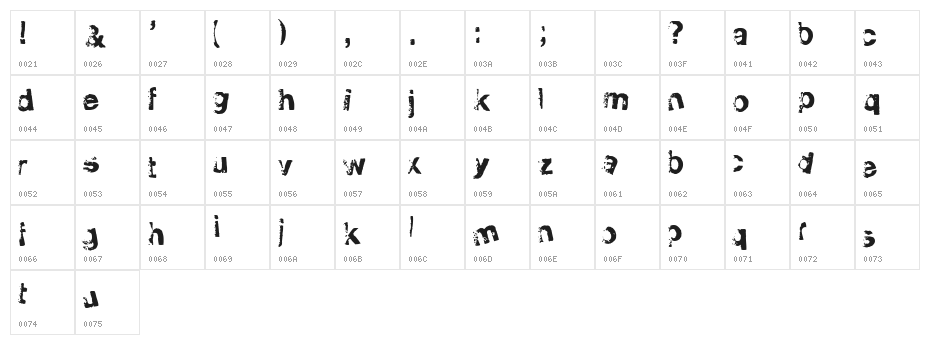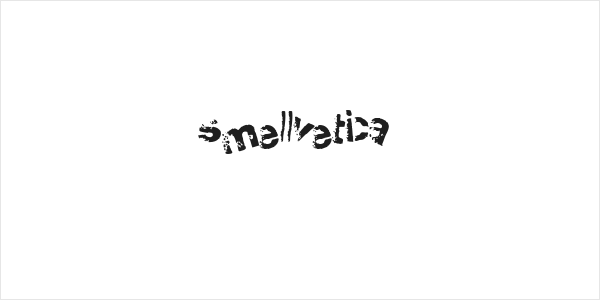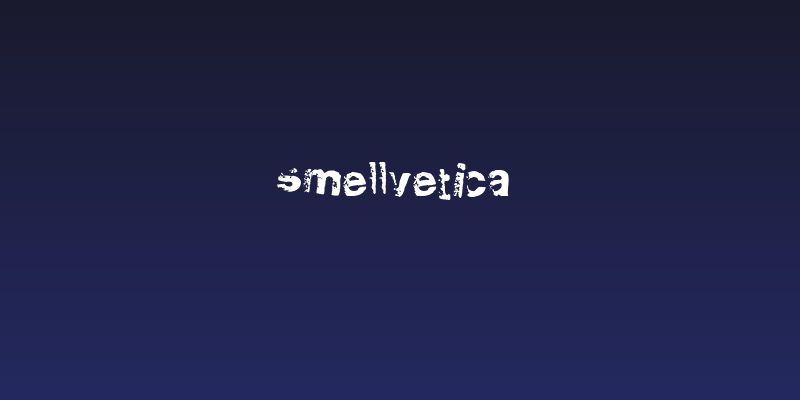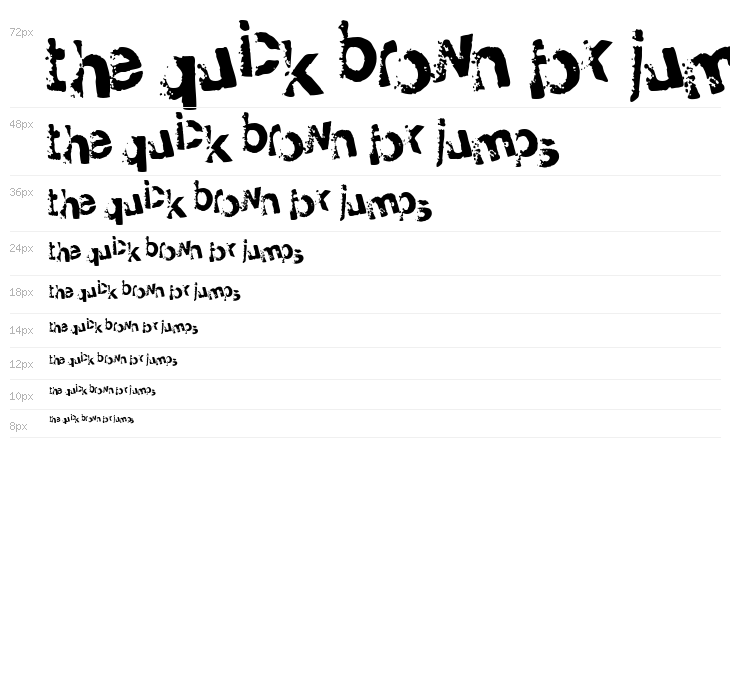
Smellvetica Font
Smellvetica Description
This font features a distressed and grungy style, with each character appearing as if it has been weathered or eroded over time. The edges are rough and uneven, giving it a raw and organic feel. The letters are bold and have a substantial presence, yet the irregularities in their form add a sense of movement and dynamism. This font is particularly striking in its ability to convey a sense of rebellion or edginess, making it ideal for projects that aim to stand out or make a bold statement. The overall appearance is both artistic and unconventional, appealing to those looking for a unique typographic expression.
| Overall Style | Grunge, Artistic |
| Use Case | Logos, Posters, Headlines |
| Proposed Projects | Ideal for album covers, streetwear branding, posters, and edgy graphic designs. |